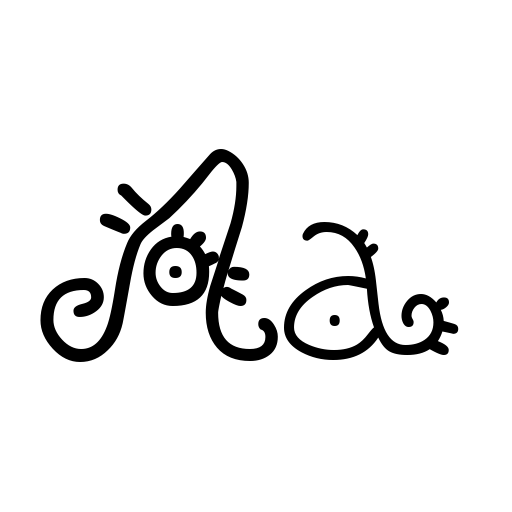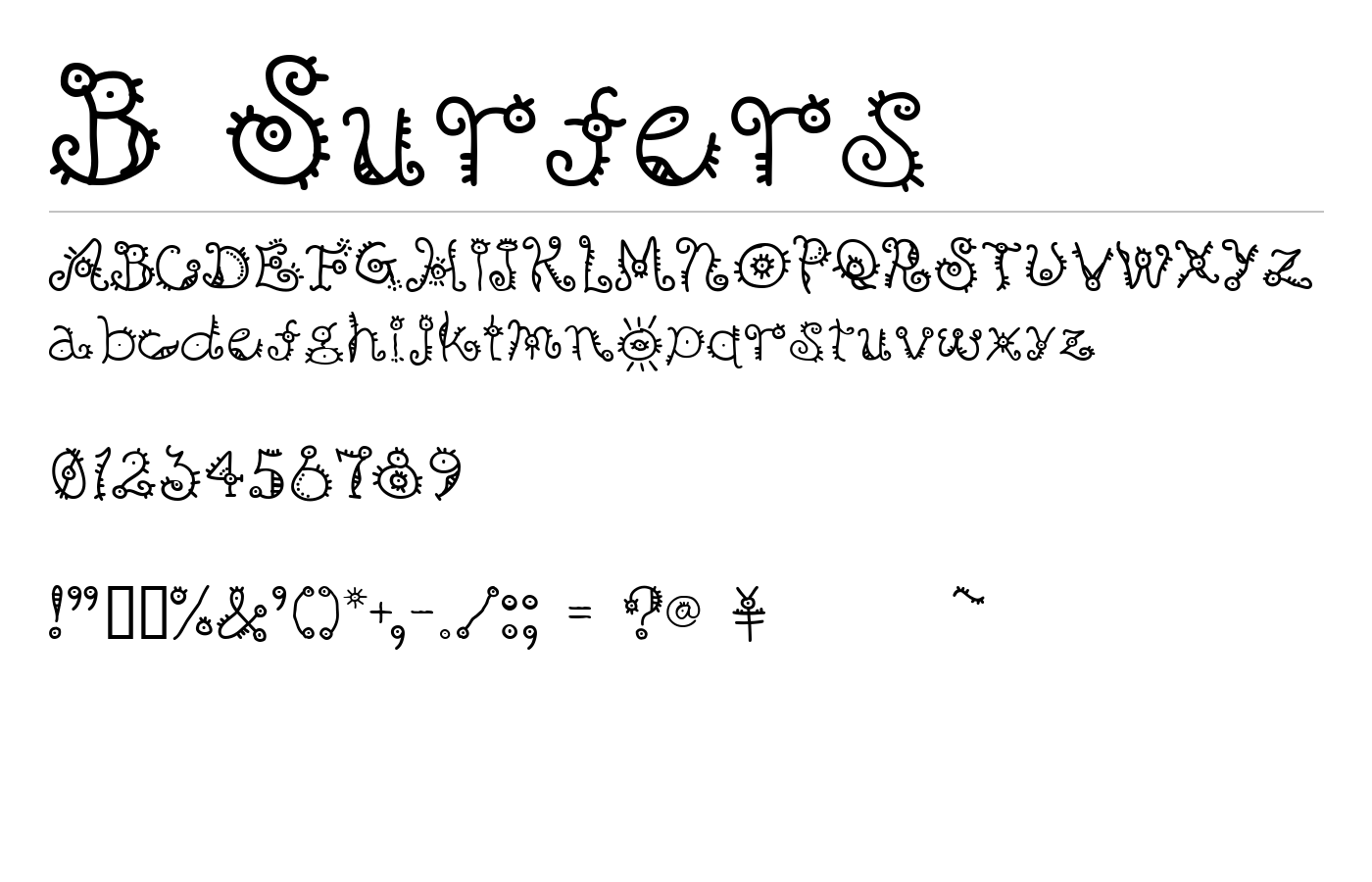
B Surfers is a whimsical, hand-drawn decorative font featuring playful, curly letterforms adorned with quirky, eye-like details. Its thin weight and highly stylized shapes give it a fun, creative vibe perfect for children’s designs, party invitations, or any project aiming for an imaginative and lighthearted feel. This font works best in display settings where its unique personality can shine without compromising readability.
B Surfers Font
About B Surfers Font